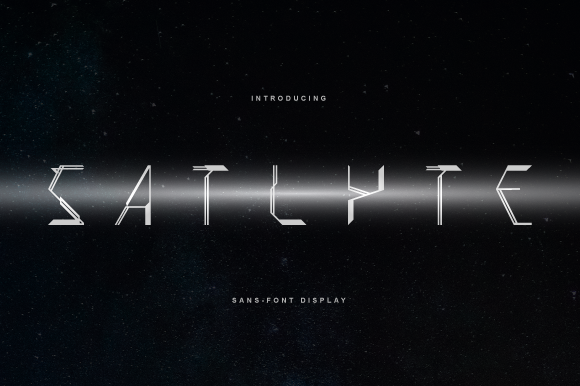
Satlyte Font
Journey into the cosmos with Satlyte Font, a celestial display font that captures the essence of aerospace technology, digital realms, and extraterrestrial wonders. IntrovArtZone, the creative force behind this font, has crafted a typographic masterpiece that transcends earthly boundaries and invites you to explore the vast expanse of your imagination.
Satlyte Font is a symphony of sharp angles, flowing curves, and interstellar elegance. Its structure echoes the sleek lines of spaceships, the intricate networks of digital circuits, and the enigmatic contours of alien landscapes. This font is not merely a collection of characters; it is a gateway to a universe of visual possibilities.
With Satlyte Font, your designs will soar to new heights. Its versatility knows no bounds, making it the perfect choice for graphic design, print design, web design, logos, branding, and any other creative endeavor that demands a touch of cosmic allure. Unleash your imagination and let Satlyte Font propel your designs to stellar heights.
Immerse yourself in the world of Satlyte Font and discover a realm where creativity and innovation collide. Embrace the allure of the unknown and let this font ignite your artistic vision. Satlyte Font is more than just a font; it is a passport to a universe of boundless possibilities.